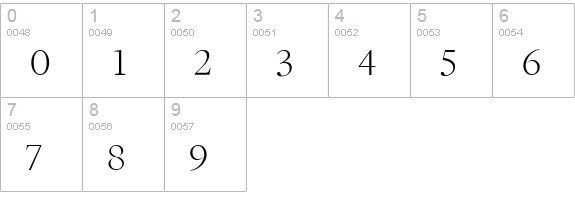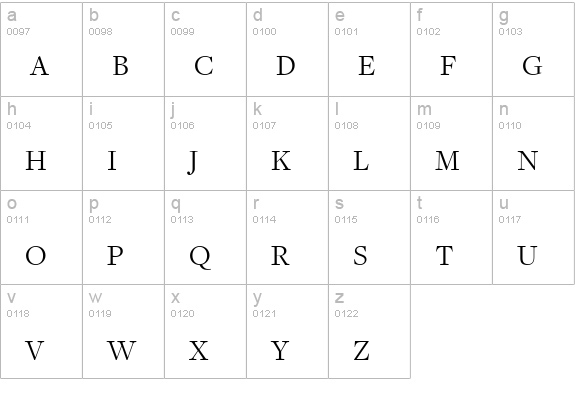
FreightDispLightSC Font Details
FreightDispLightSC font is a modern and sleek typeface that exudes elegance and sophistication. Its slender and graceful letterforms make it perfect for conveying a sense of refinement and style in any design project. The light weight of the font adds a delicate touch, making it ideal for conveying a sense of airiness and sophistication. This font is versatile and can be used for a variety of design purposes, from branding to editorial design to web design. Its clean lines and subtle curves give it a timeless appeal that will enhance any project it is used in. Best of all, FreightDispLightSC font is available for free download at FontsMarket.com. This means that you can access this beautiful and versatile font without having to spend a dime. So why wait? Download FreightDispLightSC font today and elevate your design projects with its elegant and refined aesthetic.